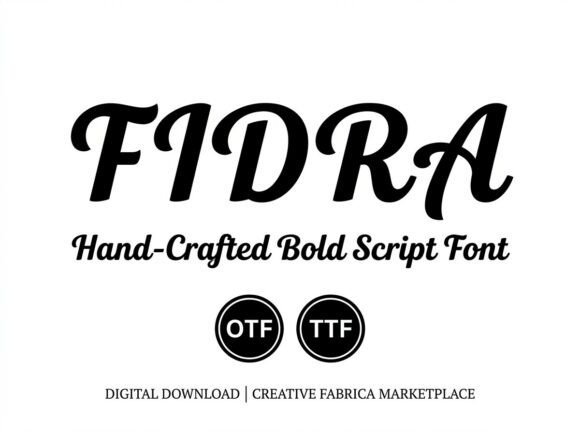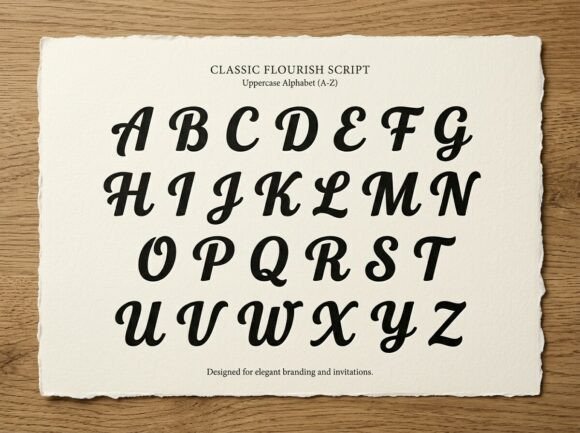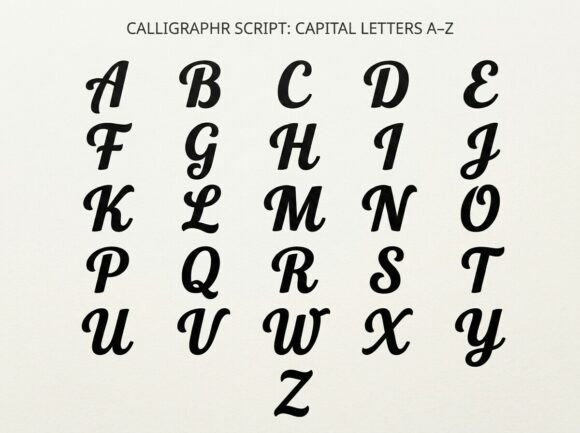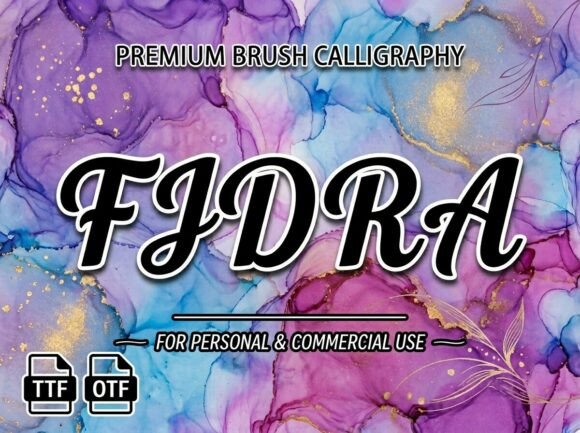
Introducing Fidra Font: Add a Touch of Handcrafted Personality to Your Designs
In the world of typography, fonts play a crucial role in conveying the tone and aesthetic of a brand or creative project. If you’re looking for a typeface that exudes a sense of authenticity and handcrafted warmth, look no further than Fidra Font. This bold script font is designed to bring a unique, organic feel to your designs, making it perfect for crafty projects, modern packaging, and engaging social media headers.
The Characteristics of Fidra Font
Fidra Font boasts heavy, fluid letterforms that are characterized by a soft, approachable aesthetic. The typeface mimics the natural flow of a master artist’s brush, giving it a distinctive, hand-painted look. The friendly visual weight and organic rhythm of Fidra provide an artisanal yet professional look, making it an exceptional choice for designers and crafters looking to add a personal touch to their work.
One of the standout features of Fidra Font is its versatility. Whether you’re designing for a casual apparel brand, crafting a standout title for a creative campaign, or creating engaging social media headers, Fidra delivers a sense of handcrafted warmth and human-centric design to every word. The font’s adaptability makes it an excellent choice for a wide range of applications, from modern packaging and playful merchandise to boutique logos and more.
Why Choose Fidra Font?
So, what sets Fidra Font apart from other typefaces? Here are just a few reasons why designers and crafters are falling in love with this bold script font:
• Authentic, handcrafted feel: Fidra’s unique, organic aesthetic gives your designs a distinctive, hand-painted look that’s sure to capture attention.
• Maximum versatility: Whether you’re working on a casual apparel brand or a creative campaign, Fidra Font adapts seamlessly to any design style.
• Professional yet approachable: Fidra’s friendly visual weight and organic rhythm provide a professional look that’s approachable and engaging.
• Easy to read: Despite its bold, expressive nature, Fidra Font is surprisingly easy to read, making it perfect for use in a variety of applications.
Using Fidra Font in Your Designs
So, how can you incorporate Fidra Font into your designs? Here are a few ideas to get you started:
• Modern packaging: Add a touch of handcrafted warmth to your product packaging with Fidra Font.
• Playful merchandise: Fidra’s bold, expressive nature makes it perfect for use on playful merchandise, such as t-shirts, stickers, and more.
• Boutique logos: Create a unique, eye-catching logo for your boutique or small business with Fidra Font.
• Social media headers: Add a pop of personality to your social media headers with Fidra Font.
If you’re looking for a typeface that exudes a sense of authenticity and handcrafted warmth, Fidra Font is an excellent choice. With its bold, fluid letterforms and friendly visual weight, Fidra is perfect for designers and crafters looking to add a personal touch to their work. Whether you’re working on a casual apparel brand, modern packaging, or engaging social media headers, Fidra Font delivers a sense of handcrafted warmth and human-centric design to every word.
Get Creative with Fidra Font